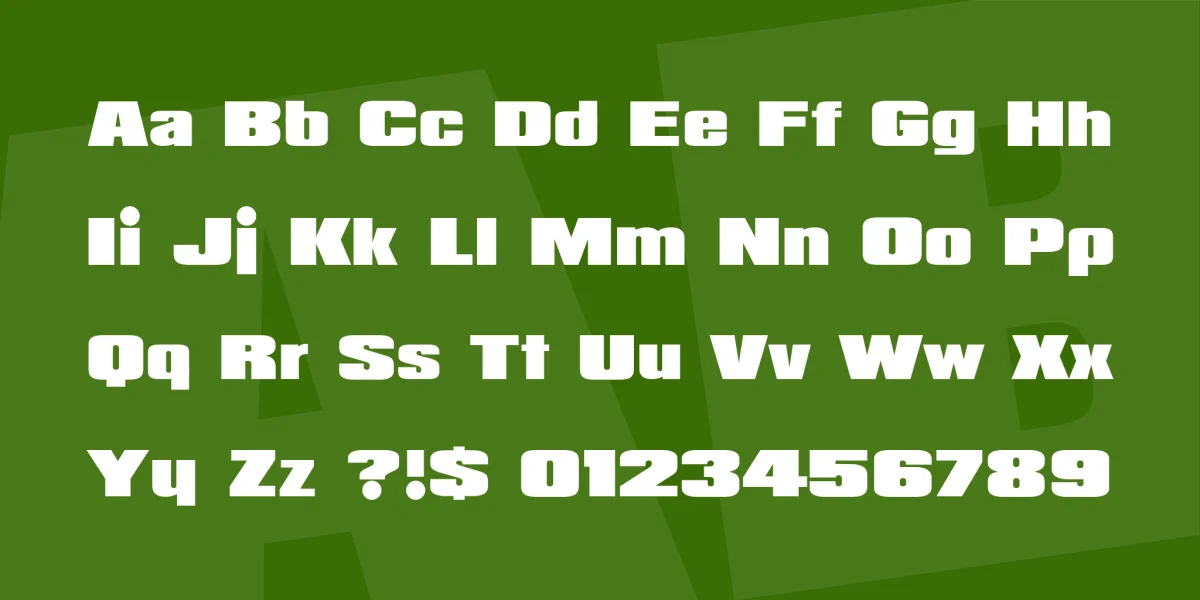
This font is a parody of the classic DQ logo.Italic version also included in zip file. Contains only basic punctuation. To use this for commercial use, email me at . Enjoy!